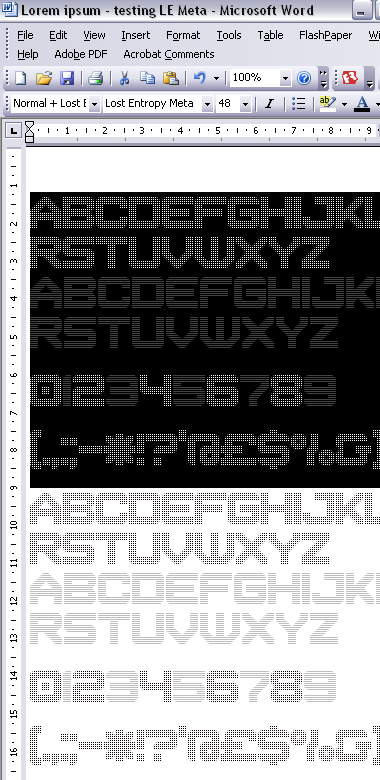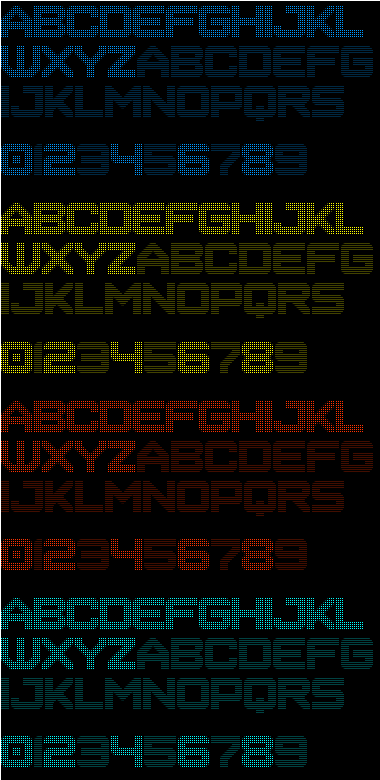
• LE = Lost Entropy; Meta = metachrome. This is font with a special property: at selected sizes it displays a special dual-colour effect.
As I promised before, I've made this font to take advantage of Moiré patterns and subpixel rendering technology. All details have been extensively discussed at Elspeth Grey.
This is a screenshot of MS Word. Some parts of the text are selected/highlighted.
The text is selected, and colored using MS Word Color Palette.